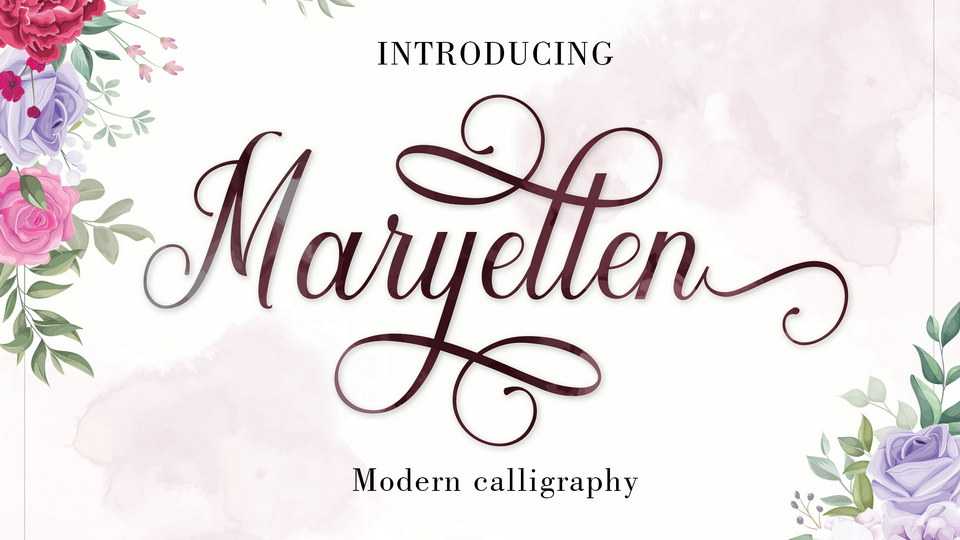
Download Maryellen font, a beautiful light handwritten script with a unique feel and a stunning impact. Maryellen will add a luxury spark to any design project that you wish to create
Designer: Amar Lettering